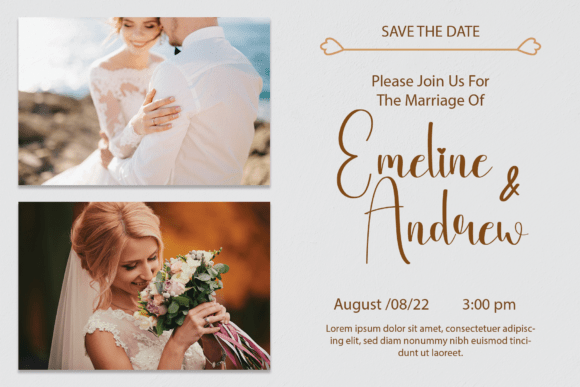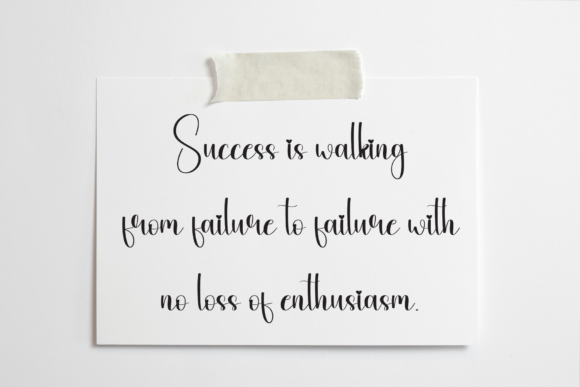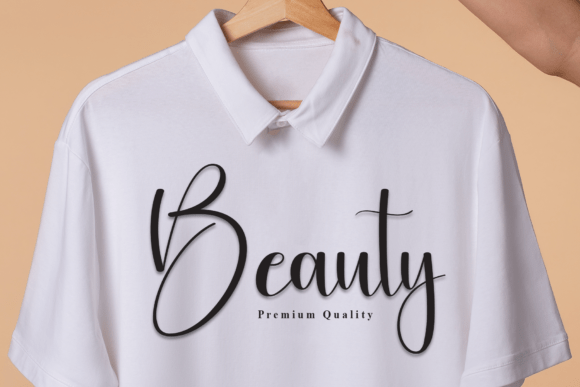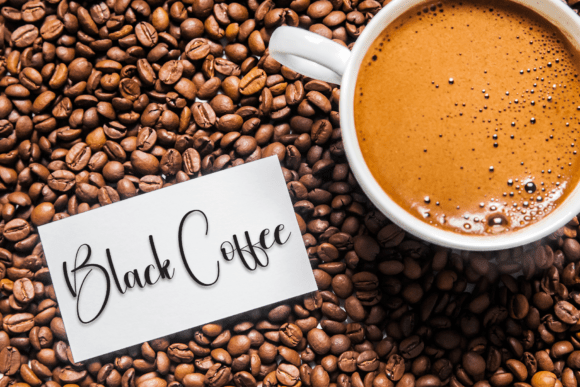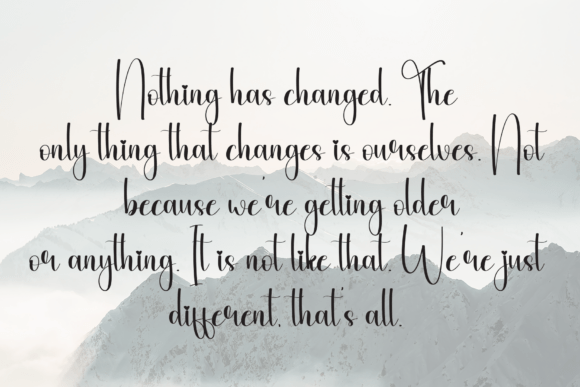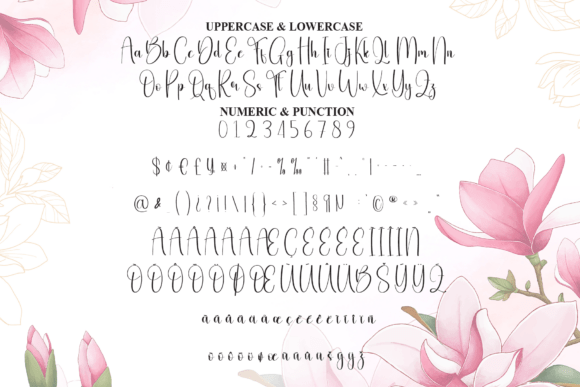
Introducing Angela Font: The Epitome of Charm and Simplicity
Step into the world of charm and simplicity with our uniquely crafted, handwritten display font – Angela Font. This delightful font is a treat for the eyes and soul alike, exuding sweetness and affability that adds a joyful touch to your creative endeavors. Whether you’re a designer, crafter, or simply someone who appreciates the beauty of handwritten typography, Angela Font is sure to captivate your heart.
The Perfect Blend of Elegance and Whimsy
Angela Font is a masterfully crafted handwritten display font that strikes the perfect balance between elegance and playfulness. Its unique, flowing script is reminiscent of a personal letter from a loved one, evoking feelings of warmth and connection. With its smooth, cursive strokes and delicate flourishes, this font is sure to add a touch of sophistication and whimsy to any design.
Ideal for a Variety of Creative Projects
Angela Font is incredibly versatile and can be used for a wide range of creative projects. Here are a few ideas to get you started:
- Wedding Invitations: Add a romantic touch to your wedding invitations and save the dates with Angela Font. Its elegant, cursive script is perfect for formal and informal wedding announcements alike.
- Personalized Cards: Make your cards and gift tags extra special with Angela Font. Whether it’s a birthday, anniversary, or holiday card, this font is sure to add a personal touch.
- Design and Branding: Use Angela Font to add a touch of whimsy and elegance to your designs, from logos and branding materials to social media graphics and advertisements.
- Stationery and Journaling: Add a decorative touch to your stationery, journals, and planners with Angela Font. Its unique script is sure to make your writing and art projects stand out.
Key Features of Angela Font
So, what sets Angela Font apart from other handwritten fonts? Here are a few key features that make it a standout:
- Unique and Handcrafted: Angela Font is a one-of-a-kind, handcrafted font that is sure to add a personal touch to your designs.
- Elegant and Whimsical: This font strikes the perfect balance between elegance and playfulness, making it suitable for a wide range of creative projects.
- Easy to Read: Despite its ornate script, Angela Font is surprisingly easy to read, making it perfect for body text and headlines alike.
- Highly Versatile: Angela Font can be used for a wide range of creative projects, from wedding invitations and cards to designs and branding materials.
Tips for Using Angela Font Effectively
Here are a few tips for using Angela Font effectively in your designs:
- Pair with Other Fonts: Angela Font pairs beautifully with other fonts, especially sans-serif fonts like Arial or Helvetica. Experiment with different font combinations to find the perfect look for your design.
- Use for Headlines and Titles: Angela Font is perfect for headlines and titles, where its elegant script can really shine.
- Add a Personal Touch: Use Angela Font to add a personal touch to your designs, whether it’s a wedding invitation or a social media graphic.
- Experiment with Colors: Angela Font looks beautiful in a variety of colors, from soft pastels to rich jewel tones. Experiment with different colors to find the perfect look for your design.